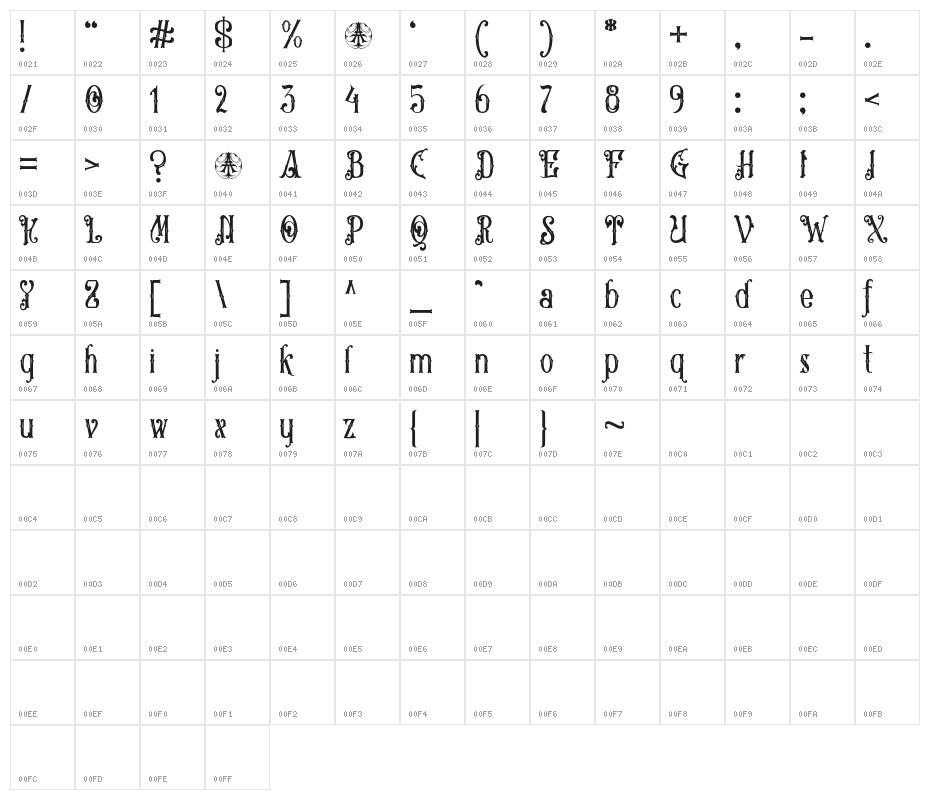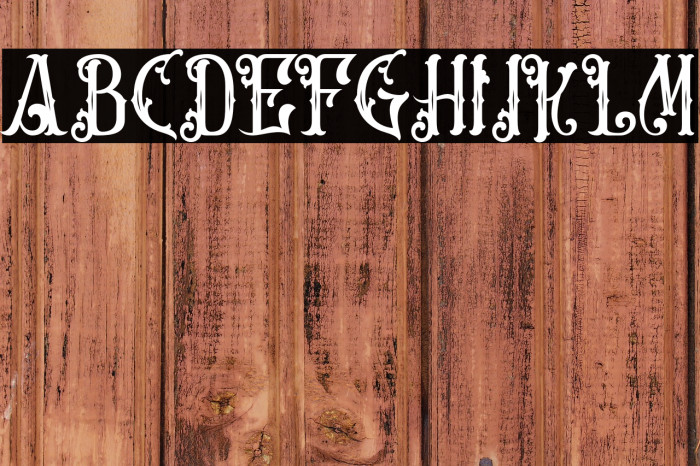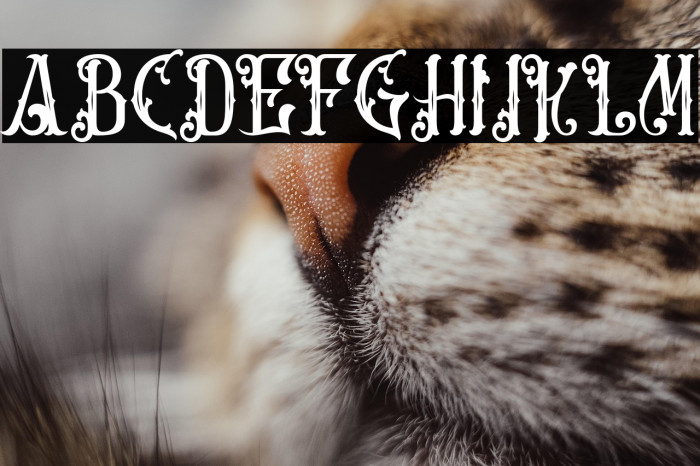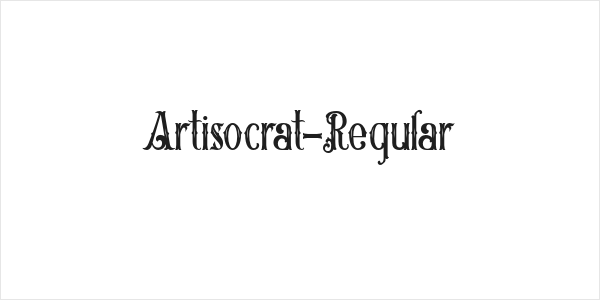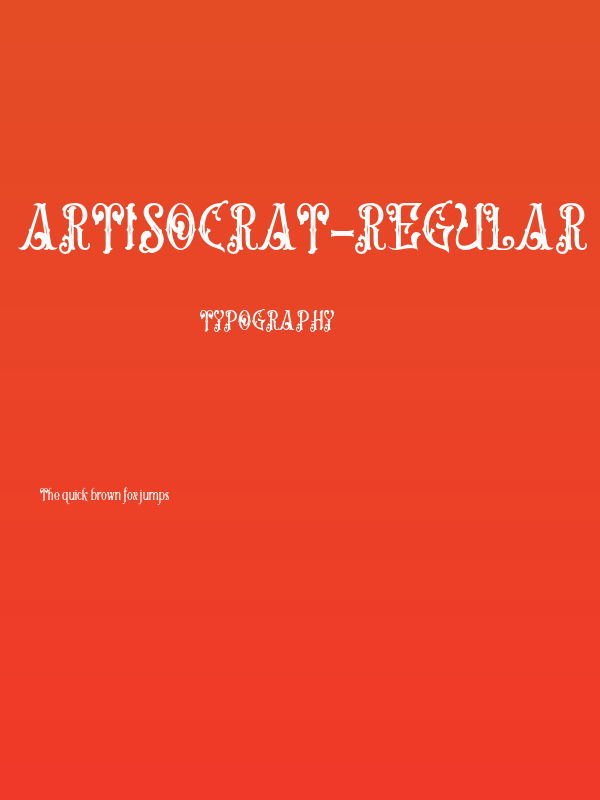
Artisocrat-Regular Font
Artisocrat-Regular Description
This font features an ornate and decorative style, characterized by intricate swirls and embellishments that adorn each letter. The uppercase letters are particularly elaborate, with flourishes that extend from the main strokes, creating a sense of elegance and sophistication. The lowercase letters maintain a similar decorative theme but are slightly more restrained, ensuring readability. Numbers and special characters follow the same ornate design, making them suitable for artistic and creative projects. The font's unique style is reminiscent of vintage or baroque aesthetics, making it ideal for projects that require a touch of classic elegance.
| Proposed Projects | Ideal for wedding invitations, vintage-themed posters, branding for luxury products, and decorative book covers. |